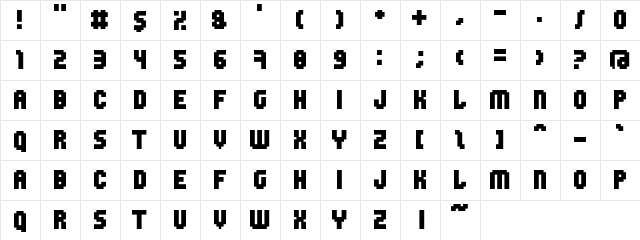
Rino Normal
Design Context for Rino Typeface
Rino takes a measured approach to typography — its balanced proportions and neutral character make it a reliable workhorse for both digital and print work.